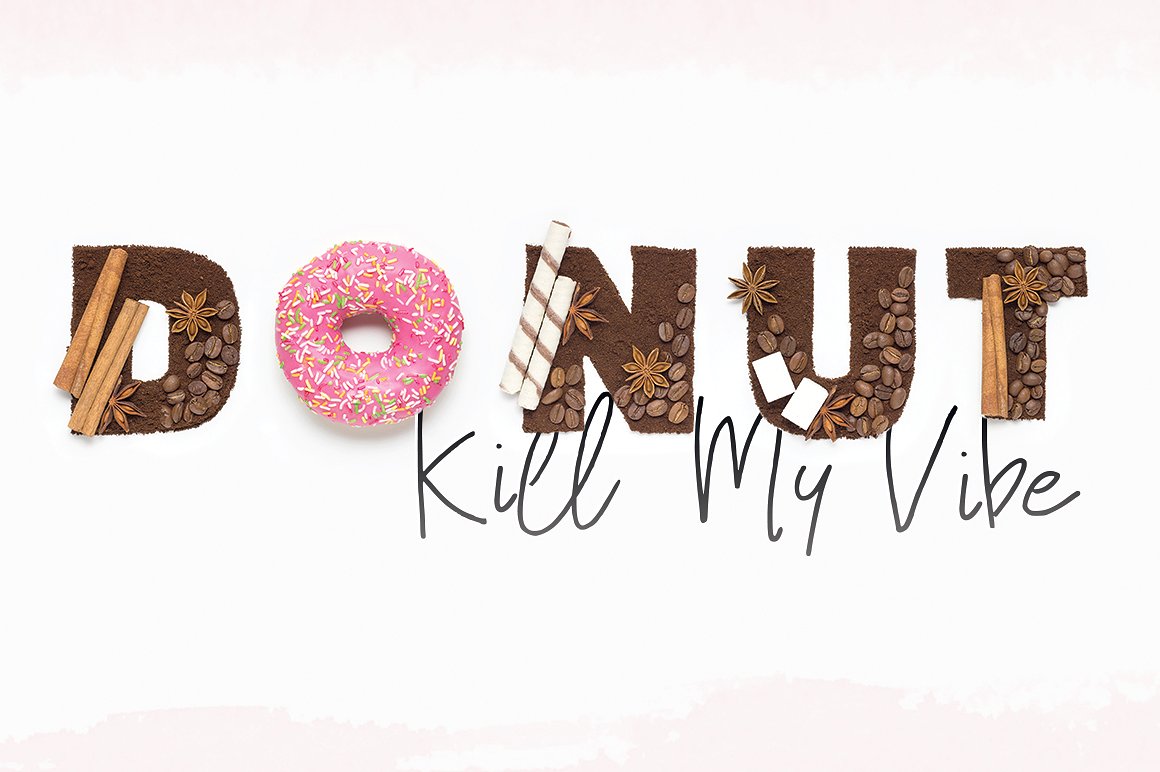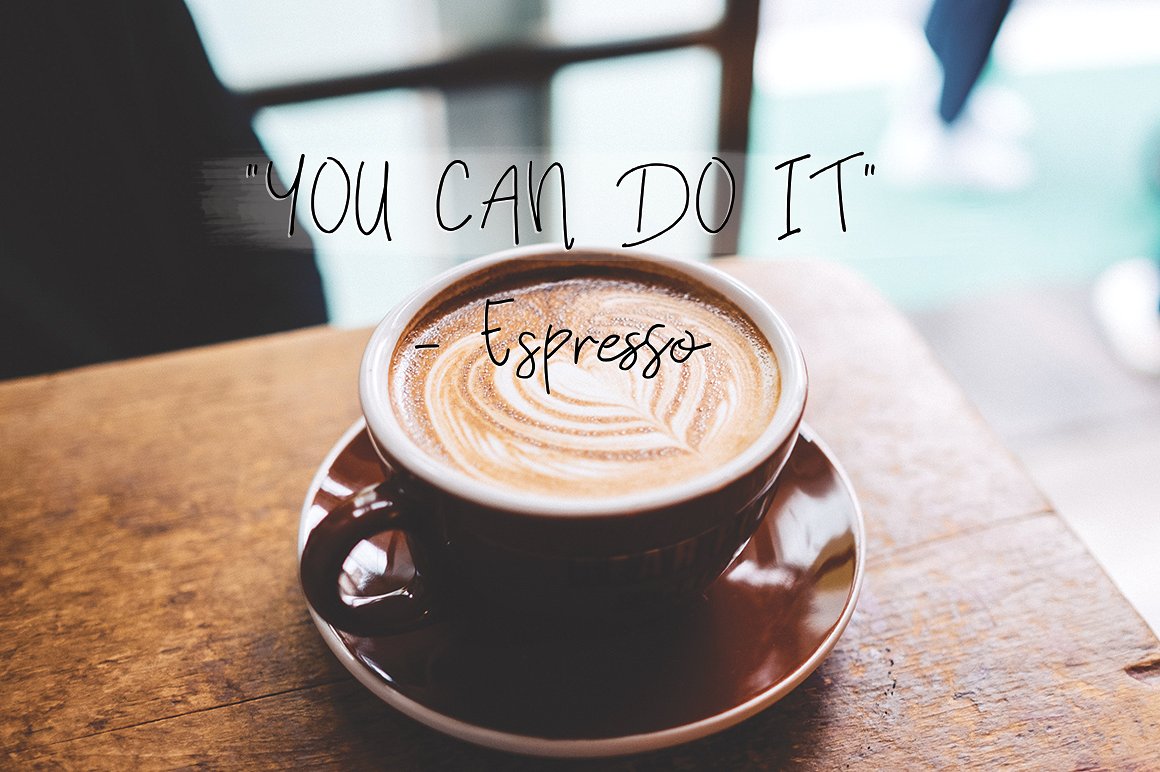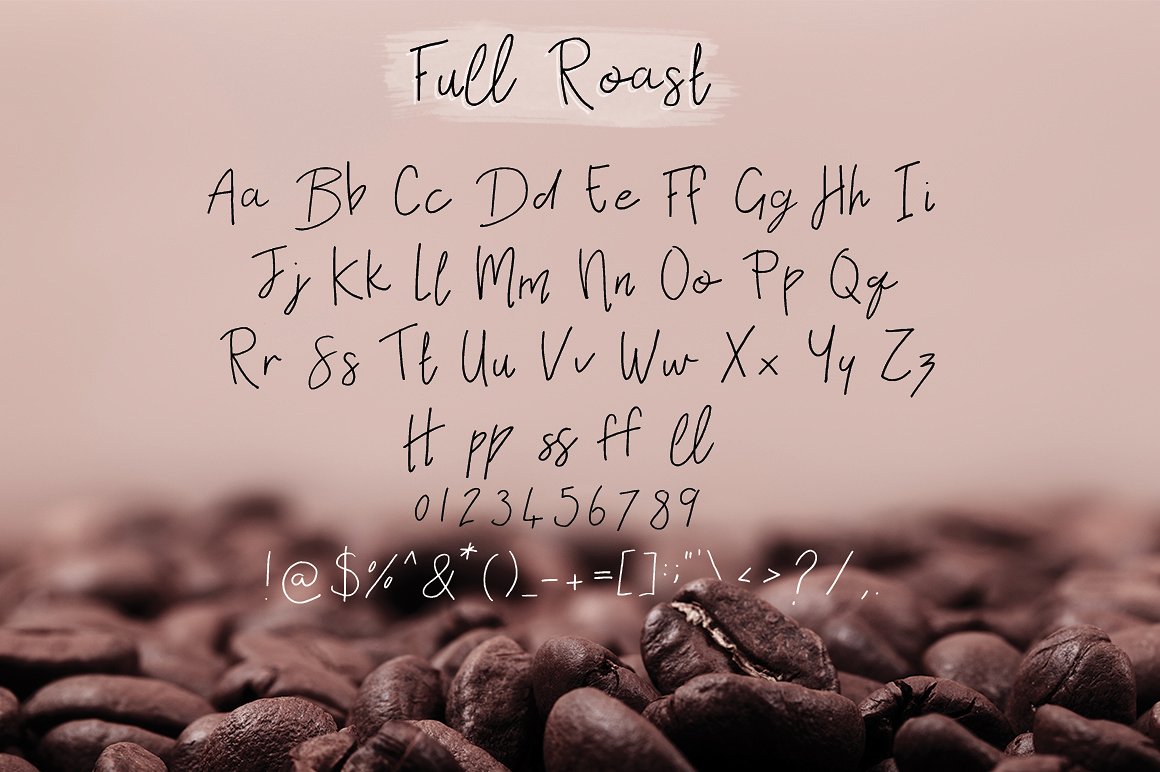
Black Glow Font
About Black Glow Font
Can’t design without coffee? Then this brand spanking new font is for you! Roasted to the highest quality and full of flavor, Black Glow is an incredible handwritten font that will get you thinking…what’s not to love!?